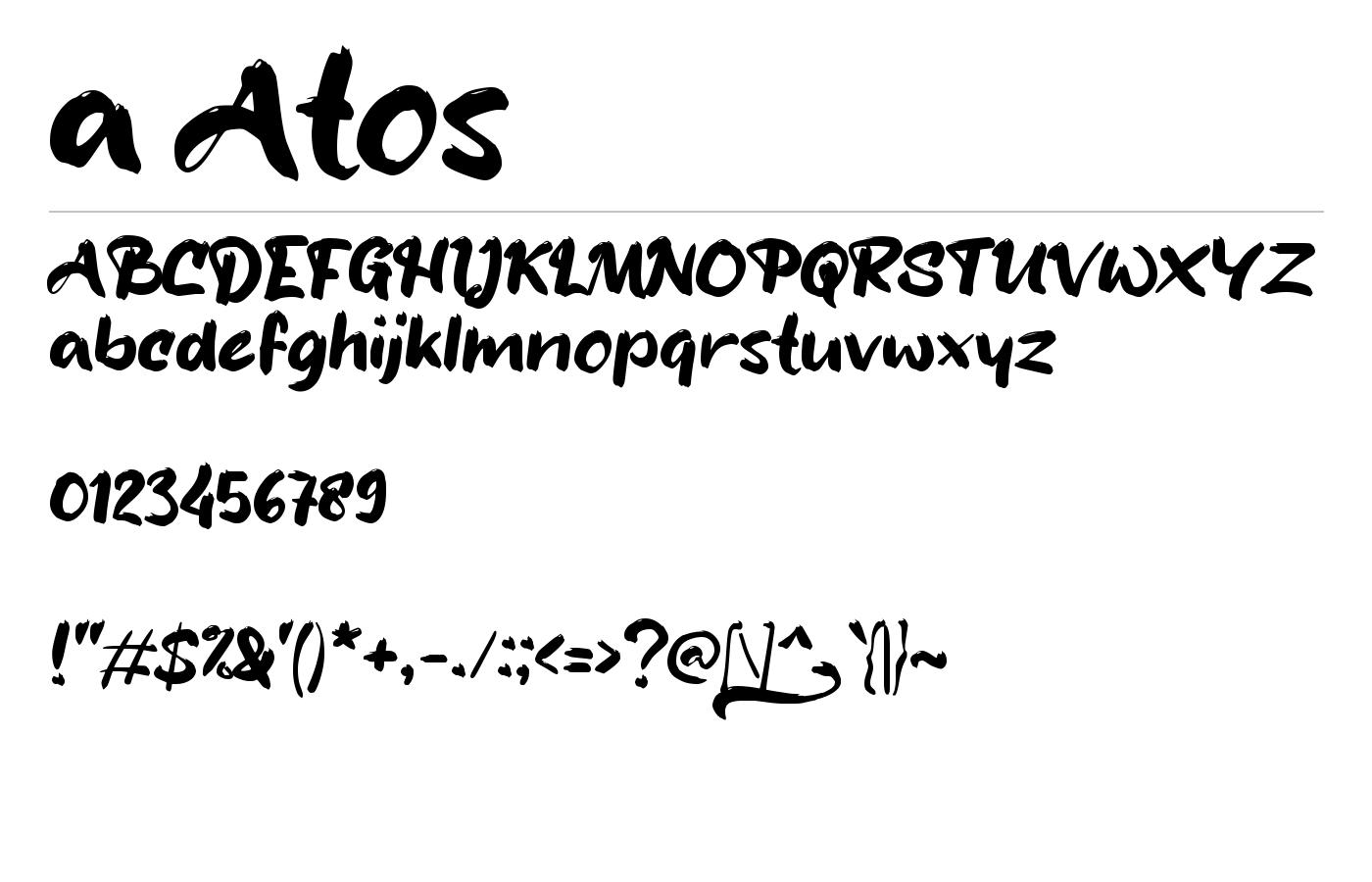
Atos is a bold, expressive handwritten script font with a playful and artistic feel, featuring irregular strokes that mimic brush lettering. Its lively and casual style, combined with energetic curves and distinctive letterforms, makes it great for creative branding, posters, and informal designs that want to convey warmth and personality. This font shines in display uses where an approachable, handmade vibe is desired.
a Atos Font